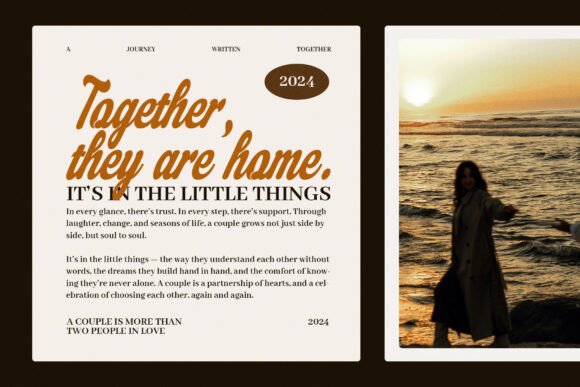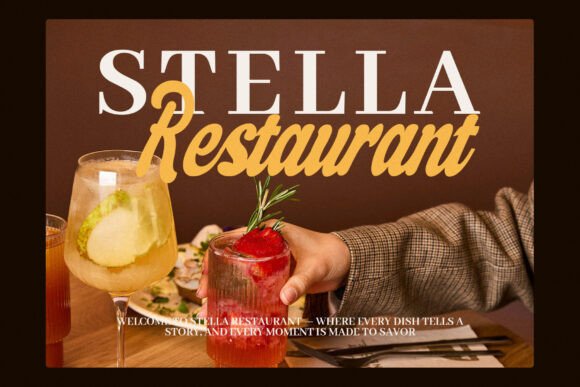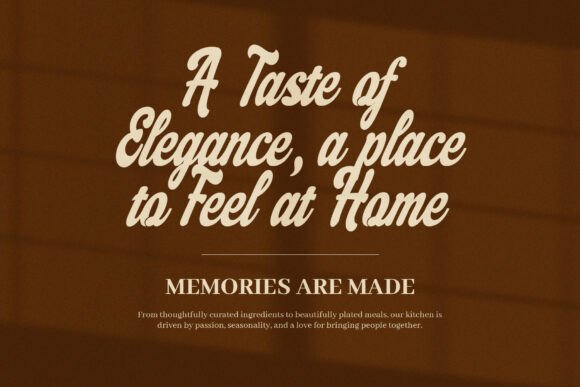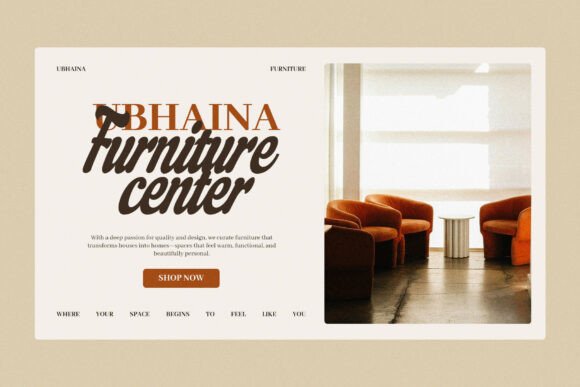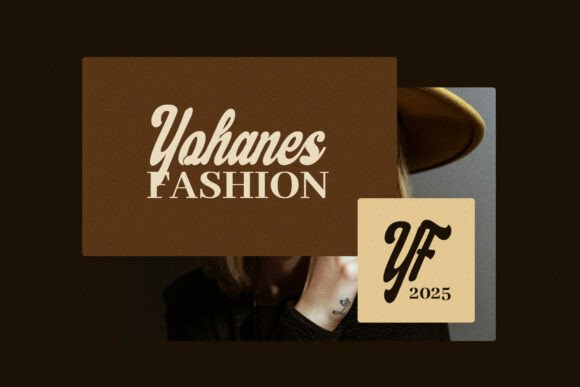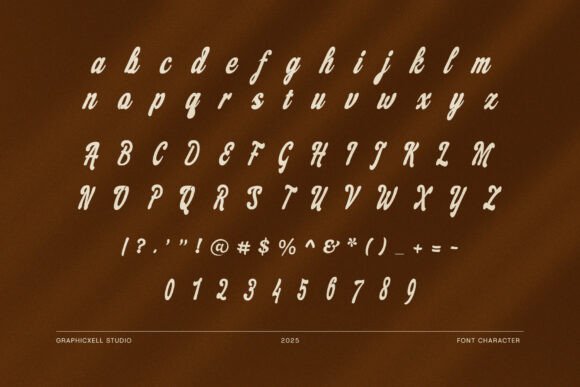
Introduction to Mutivea Font
Have you ever been stuck on a creative project, trying to find the perfect font to capture the essence of your vision? You’ve scoured design resources, searched high and low for that one special typeface that will elevate your work to the next level. For designers, the right font can make all the difference – it’s what sets a good design apart from a great one. And that’s where the Mutivea Font comes in – a refined and elegant script typeface that’s sure to inspire your next creative project.
With its smooth, flowing strokes and variety of alternate calligraphy characters, the Mutivea Font is the perfect addition to any design arsenal. Whether you’re working on a high-end branding project, a wedding invitation, or a simple social media post, this font is sure to bring a touch of sophistication and elegance to your work.
Key Features of Mutivea Font
- Includes 100 unique glyphs, making it perfect for logos, branding, and typography
- Perfect for designers and artists looking for a unique and versatile font for their next creative project
Honest Review: Mutivea Font
I recently came across the Mutivea Font while searching for a high-quality design resource for my creative project. I was impressed with its modern and elegant design, which I think would be perfect for a variety of uses.
Here are some things that I think work well with the Mutivea Font: ✨
- It has a transparent background, which makes it easy to use on any background color or image.
- It’s highly customizable, which is great for designers who want to add their own personal touch to their work.
- It’s available in a variety of weights and styles, which makes it easy to use for a range of design projects.
However, I did encounter a few limitations with the Mutivea Font: ⚠️
- It’s not as versatile as some other fonts, which may limit its use in certain design projects.
- It may not be as easily readable on smaller screens or in smaller sizes.
Overall, I think the Mutivea Font is a great addition to any designer’s toolkit. It’s a high-quality font that’s perfect for a variety of creative projects. With a little creativity and experimentation, I think it could be used in a wide range of applications.
The Mutivea Font is a versatile design resource that can be used in a variety of creative projects, including logos, posters, and business cards.
It’s particularly well-suited for use in digital designs, where its transparent background can help it blend seamlessly with other elements.
Tips for Getting the Most Out of Mutivea Font
To get the most out of the Mutivea Font, be sure to experiment with different font sizes, colors, and styles to find the look that works best for your project.
Additionally, consider using the font in combination with other design elements to create a visually appealing and effective design.
The Alex Brush Font is a beautiful, high-quality font that features a calligraphic style with a transparent background. It’s perfect for designers who want to add a touch of sophistication and elegance to their creative projects. This font is ideal for use in logos, headings, and other design elements where a elegant and refined look is required.
Yes, the Mutivea Font features a transparent background, allowing designers to easily combine it with other design elements. This makes it an ideal choice for creative projects that require a high level of design flexibility.